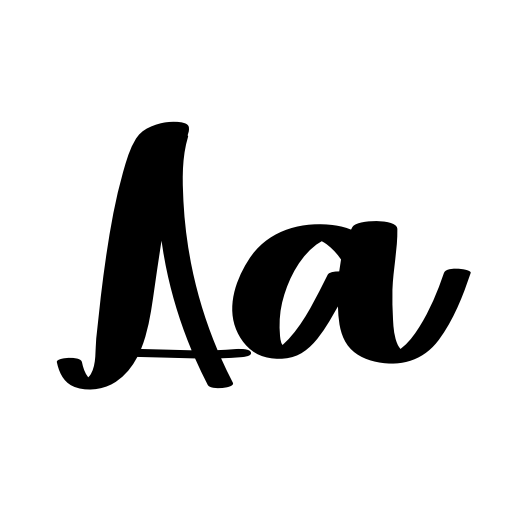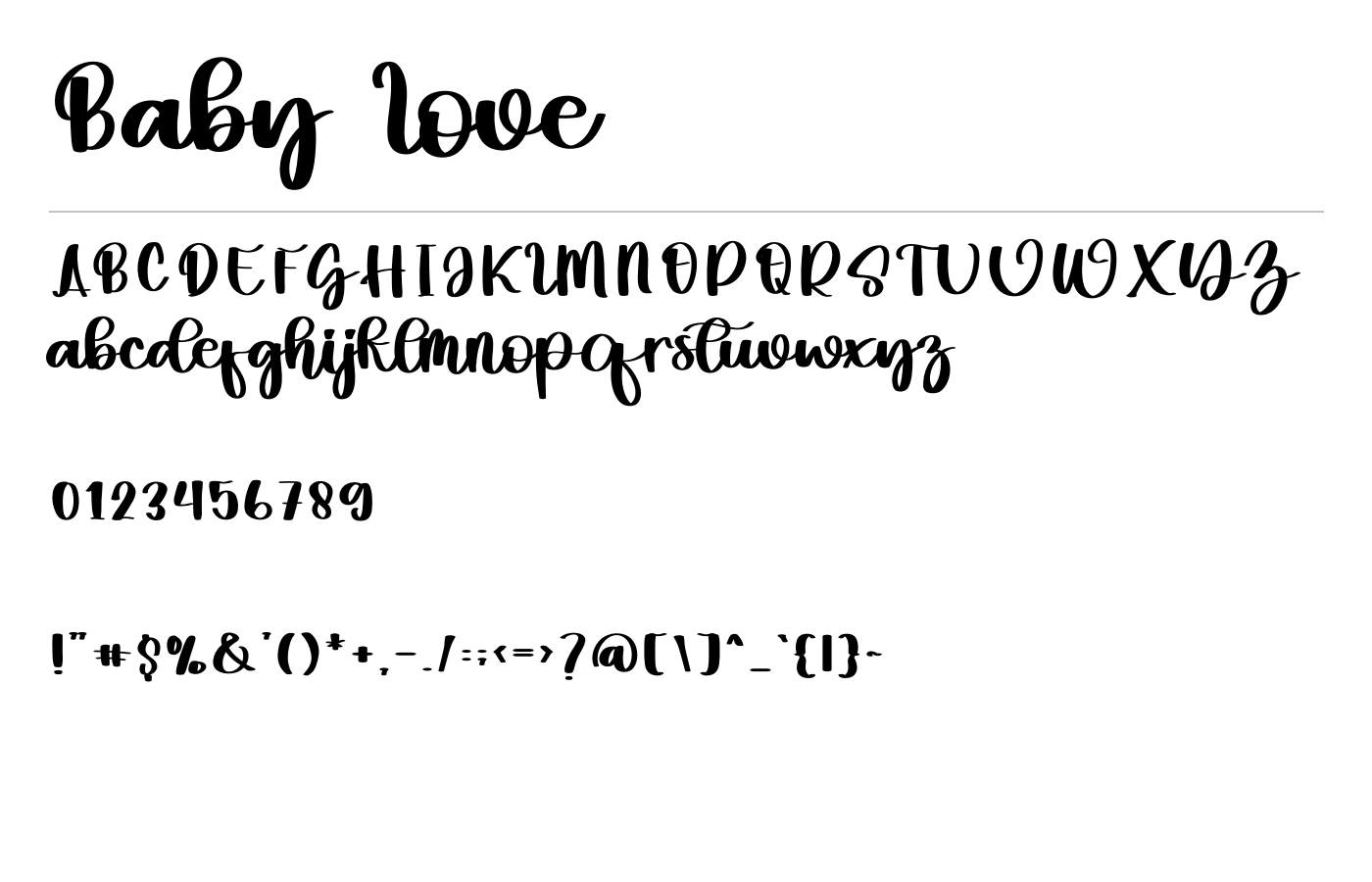
Baby Love is a charming and playful script font with bold, rounded strokes and smooth, flowing curves that give it a warm, friendly feel. Its casual calligraphic style makes it perfect for branding, invitations, and designs that want to convey a sense of fun, creativity, and approachability. This font works well in headlines and logos where a touch of whimsy and personality is desired.
Baby Love Font
About Baby Love Font